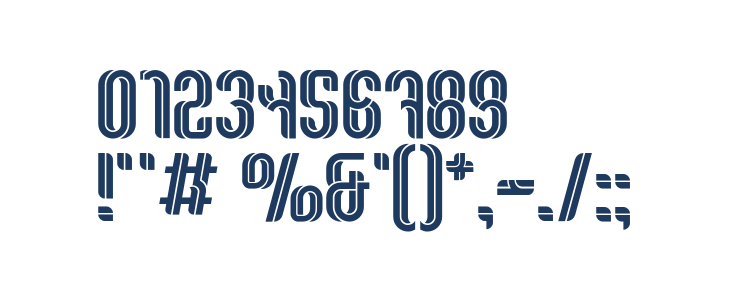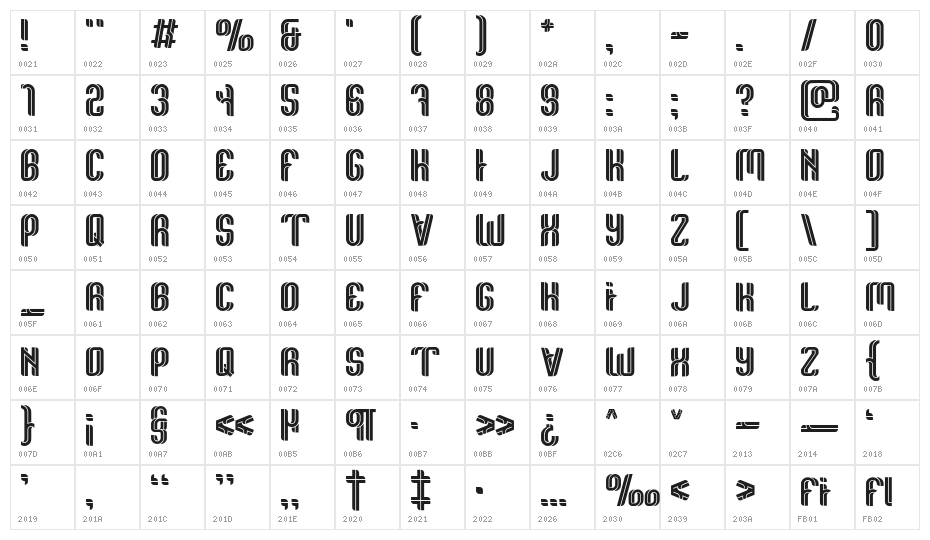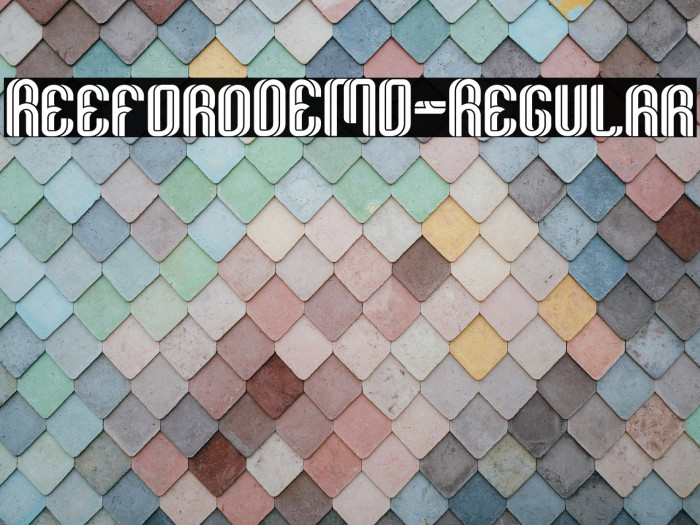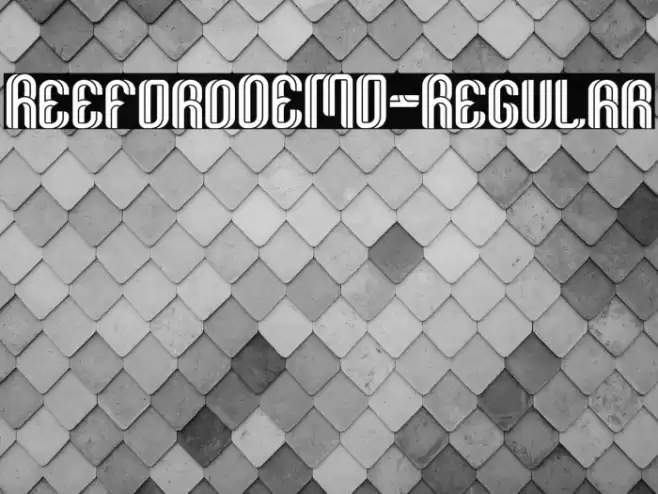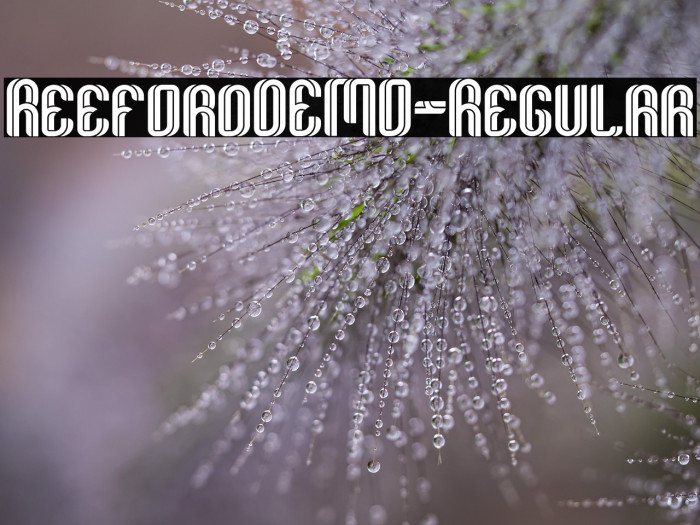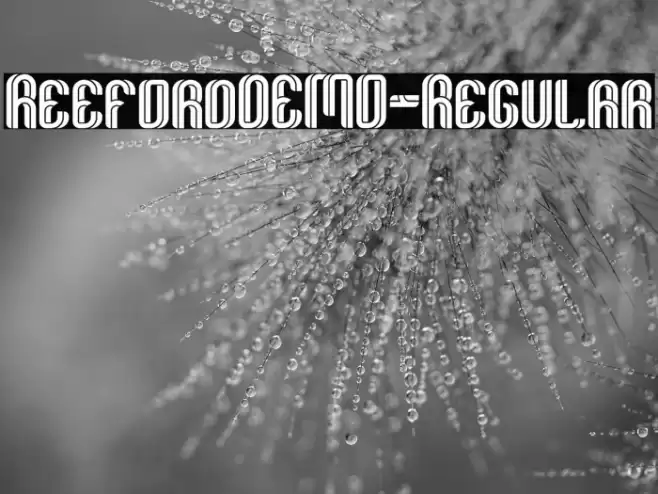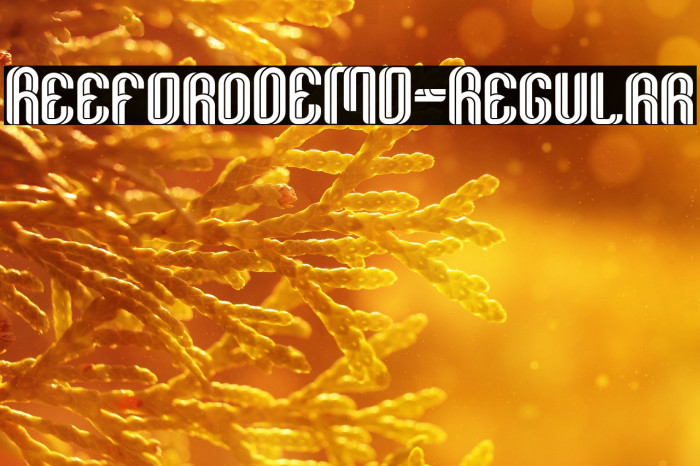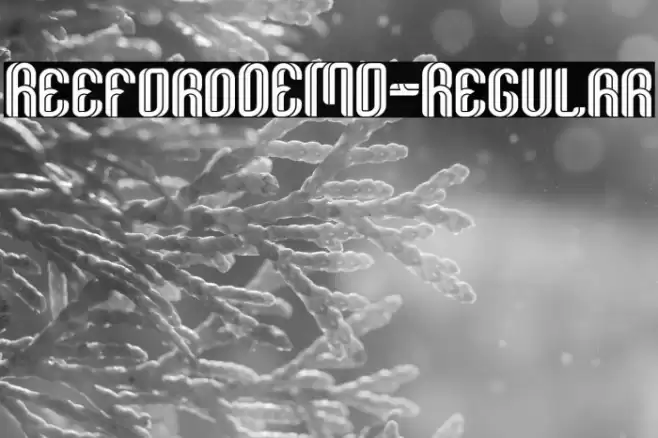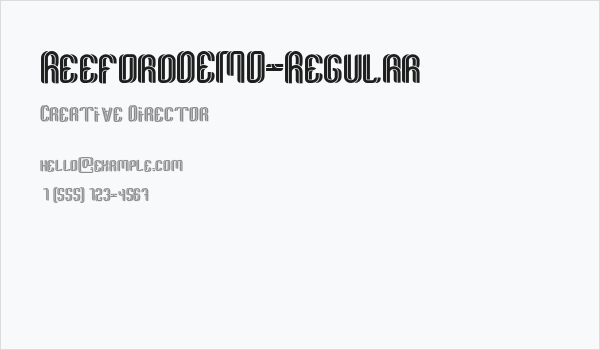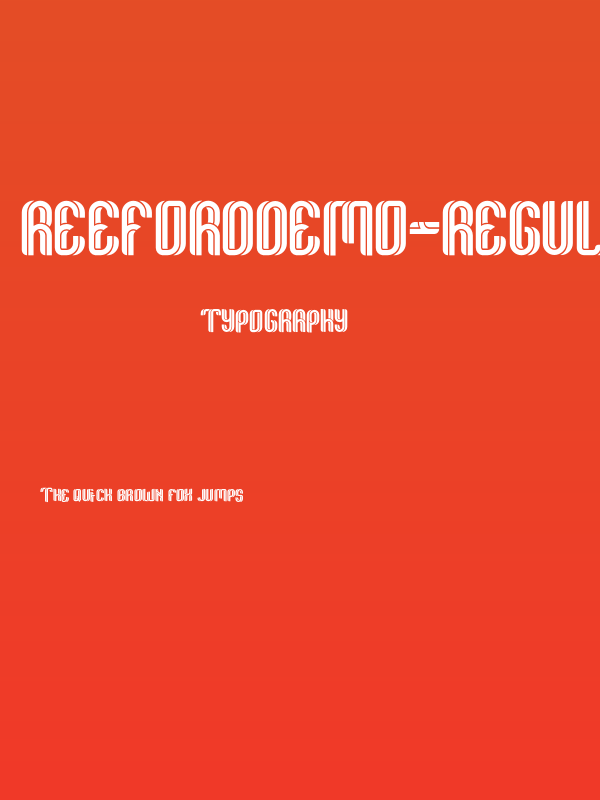
ReefordDEMO-Regular Font
ReefordDEMO-Regular Description
This font features a bold and striking design with a modern twist. The characters are constructed with thick, parallel lines that create a sense of depth and dimension. The uppercase and lowercase letters maintain a consistent style, with rounded edges and a geometric structure that adds to its contemporary appeal. The numbers and special characters follow the same design principles, ensuring uniformity across all glyphs. This font's unique style makes it stand out, combining elements of both modern and retro aesthetics. The overall appearance is both eye-catching and versatile, suitable for a variety of design applications.